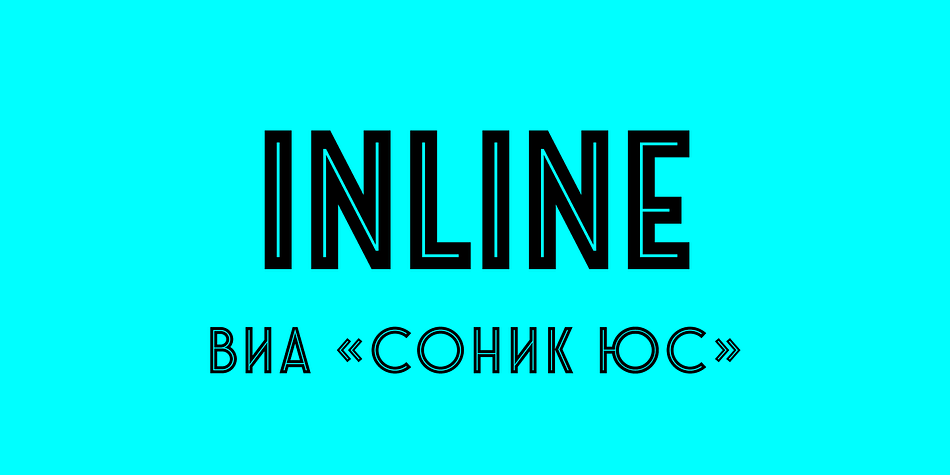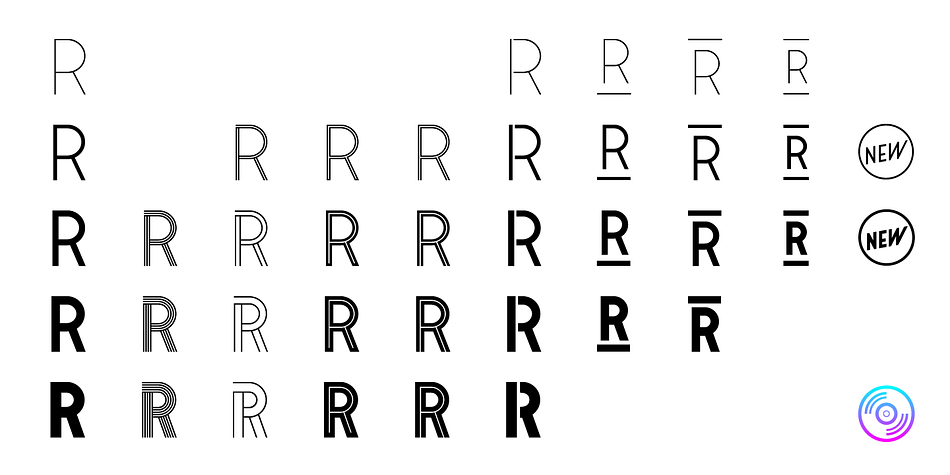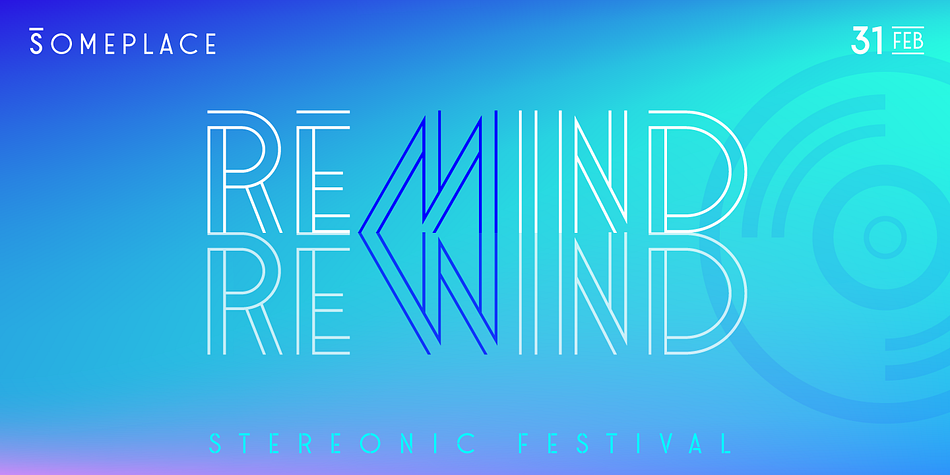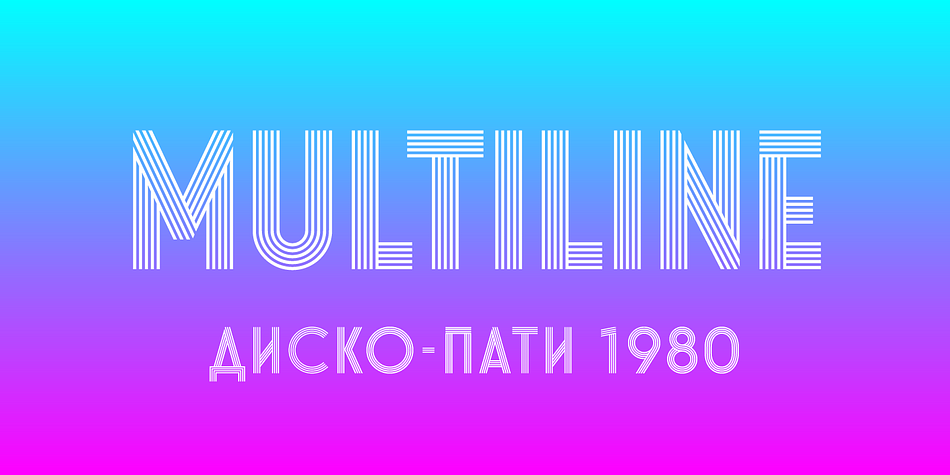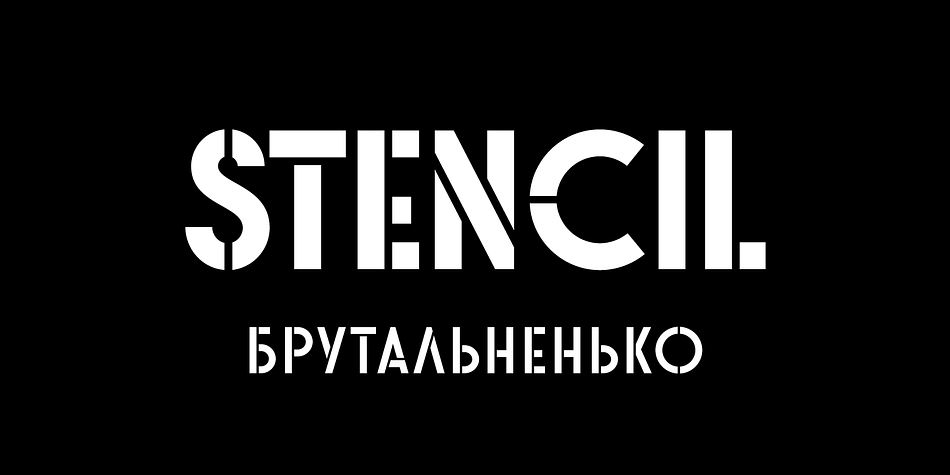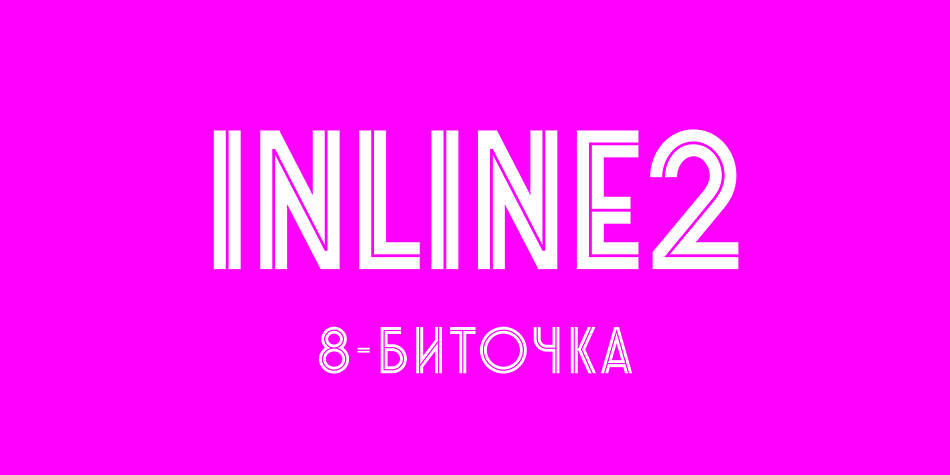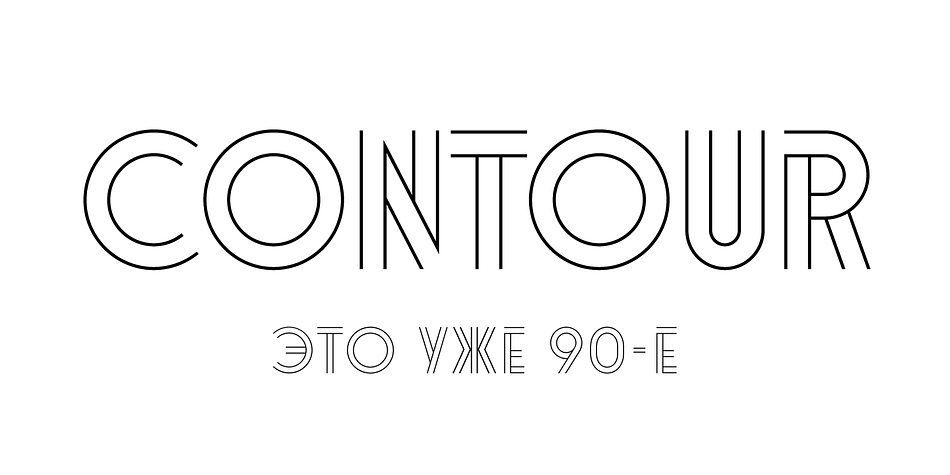
Designed by Oleh Lishchuk, Stereonic is a multiple classification font family. This typeface has thirty-eight styles and was published by Mint Type.
Stereonic is a geometric display sans influenced by Art Deco style. Its 38 fonts across 5 weights offer the possibility to convey numerous moods and styles typical for different decades.
As the name suggests, the music posters were considered as the perfect application for this typeface, however using it in magazines and other editorial will definitely add more style.
A variety of included ligatures and alternatives will also make Stereonic a perfect choice as the base for logotypes.